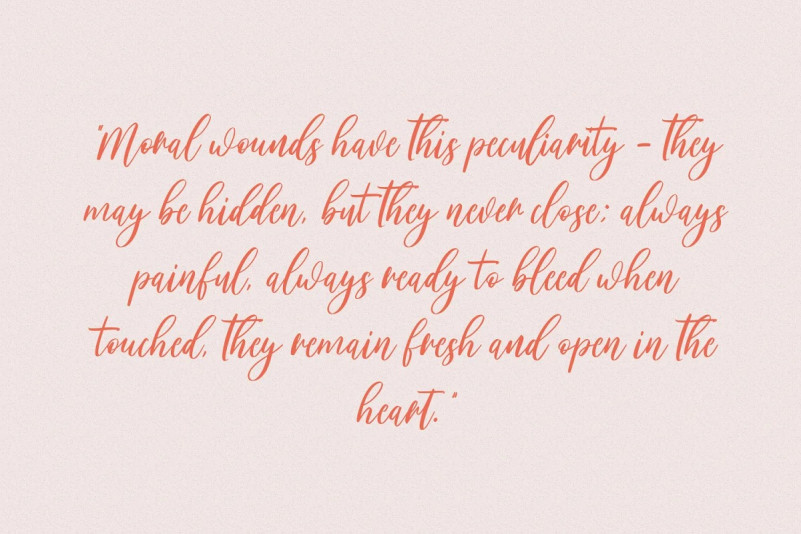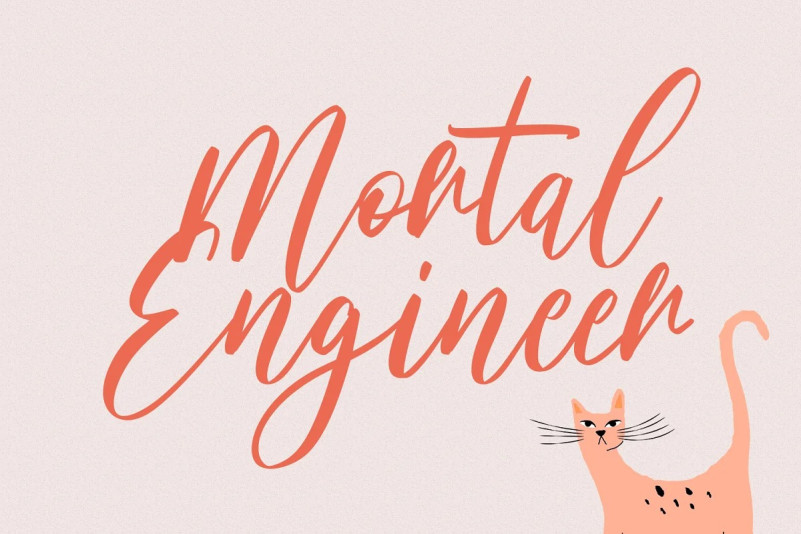
Skylounge Font
Skylounge Script Font is a slanted cursive script font. With light contrast stroke, fun character with a bit of ligatures. To give you an extra creative work. “Skylounge” font support multilingual more than 100+ language. This font is good for logo design, Social media, Movie Titles, Books Titles, a short text even a long text letter and good for your secondary text font with sans or serif. Make a stunning work with “Skylounge” font.